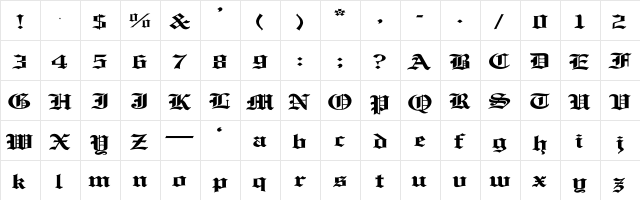
EnglishTowne-Normal Ex Regular
Design Context for EnglishTowne-Normal Ex Typeface
EnglishTowne-Normal Ex takes a measured approach to typography — its balanced proportions and neutral character make it a reliable workhorse for both digital and print work.